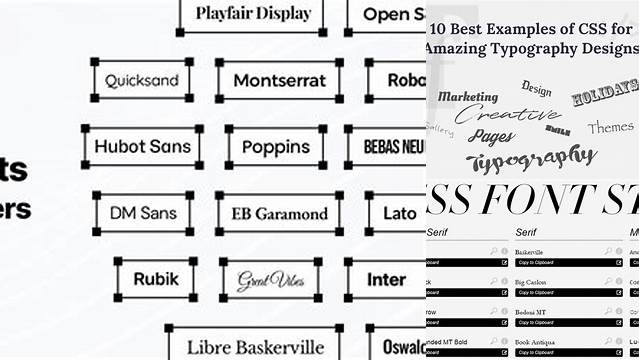
Top CSS Fonts: Best Website Typography Guide
Choosing the best fonts for websites using CSS can be a game-changer for your site's look and feel. Guys, think about it: the right typography not only makes your content readable but also enhances your brand's personality. In this article, we're diving deep into the world of web fonts, exploring everything from the basics of CSS font properties to the nitty-gritty of pairing fonts effectively. So, let's get started and make your website shine with the perfect font choices!
Understanding CSS Font Properties
When we talk about best fonts for websites and CSS, it's crucial to understand the properties that control how fonts appear. CSS font properties are the tools you use to style the text on your website, ensuring it aligns with your design vision. Let's break down the key properties you'll be working with:
font-family
: This property specifies the font you want to use. You can list multiple fonts as fallbacks in case the user's browser doesn't support the primary font. For example,font-family: 'Arial', sans-serif;
tells the browser to use Arial if available, and if not, to default to a generic sans-serif font.font-size
: This one's pretty straightforward—it sets the size of your text. You can use various units like pixels (px), ems, rems, or percentages. For a responsive design, using relative units like ems or rems is often a smart move because they scale with the user's browser settings.font-weight
: This property controls the boldness of the text. You can use values likenormal
,bold
,lighter
,bolder
, or numeric values like 100 to 900. Using different font weights can help create visual hierarchy and emphasize important content.font-style
: This property is used to make text italic or oblique. The common values arenormal
,italic
, andoblique
. Italic is generally used for emphasis, while oblique is a slanted version of the font.line-height
: This property sets the amount of space between lines of text. A good line height improves readability by preventing lines from appearing too cramped. A common recommendation is to use a value between 1.4 and 1.6 for optimal readability.color
: While technically not a font property, the color of your text is crucial for readability and aesthetics. Choose colors that contrast well with your background to ensure your text is easy to read. Think about your brand's color palette and how the text color fits into the overall design.
Mastering these CSS font properties is the first step in choosing the best fonts for websites. You'll have the power to make your text look exactly how you want it, ensuring your content is both beautiful and readable. So, let's dive deeper into how these properties can be used to create stunning typography!
Best Sans-Serif Fonts for Modern Websites
When you're aiming for a modern and clean look, sans-serif fonts are often your best font for websites choice. These fonts lack the small decorative strokes (serifs) found in serif fonts, giving them a contemporary feel. Let's explore some top sans-serif options that can elevate your website's design:
- Arial: A classic and widely used sans-serif font, Arial is known for its readability and versatility. It's a safe bet for body text and headings alike. Arial is a system font, meaning it's pre-installed on most devices, ensuring consistent rendering across different platforms. While some designers find it a bit generic due to its ubiquity, it's still a solid choice for projects where readability is paramount.
- Helvetica: Another timeless sans-serif, Helvetica is praised for its clean lines and neutral appearance. It's incredibly versatile and works well in a variety of contexts. Helvetica has a very uniform structure, which makes it highly legible even at small sizes. This makes it a great option for user interfaces and websites with a minimalist design aesthetic.
- Open Sans: Open Sans is a popular choice for web design due to its open and friendly appearance. It was designed with readability in mind and performs well on screens of all sizes. Open Sans is often used in body text and is available in a variety of weights, giving you flexibility in your design. It's a Google Font, so it's easy to implement on your website.
- Roboto: Roboto is a modern sans-serif font that's part of the Android operating system. It has a geometric design with friendly and open curves, making it highly readable and visually appealing. Roboto is a versatile font that works well for headings and body text, and it's available in multiple weights and styles. Like Open Sans, it's a Google Font, making it easily accessible.
- Lato: Lato is a stylish and modern sans-serif font with semi-rounded details. It has a warm and friendly feel, making it a great choice for websites that want to convey a welcoming vibe. Lato is highly readable and works well in a variety of contexts, from headings to body text. It's another Google Font, making it a breeze to incorporate into your design.
- Browse and Preview: Start by exploring the Google Fonts website. You can filter fonts by category (serif, sans-serif, display, handwriting, etc.), style, and language. Preview the fonts with your own text to see how they look in context. Google Fonts also allows you to adjust the font size and weight to get a better sense of how they'll appear on your site.